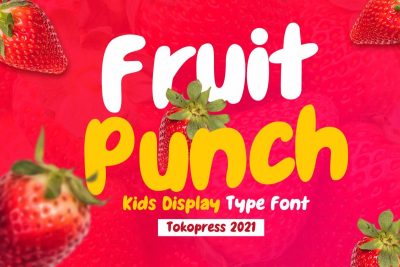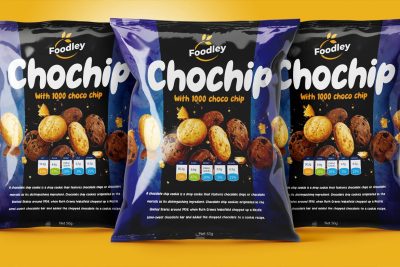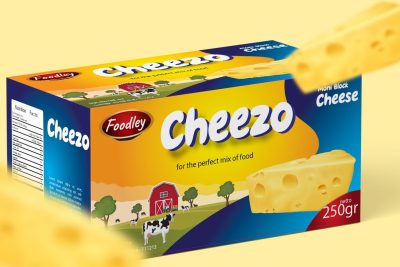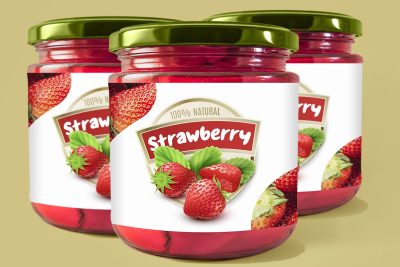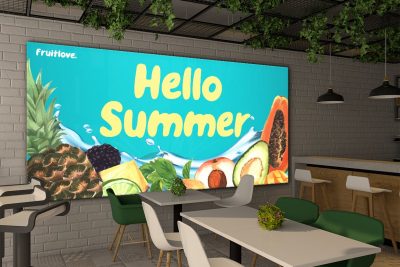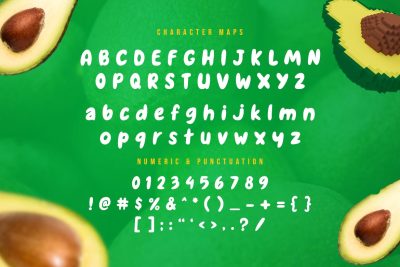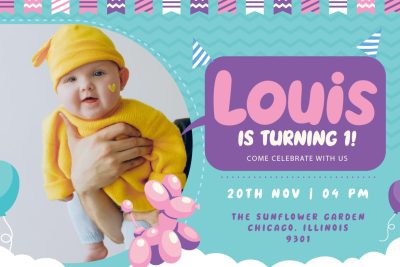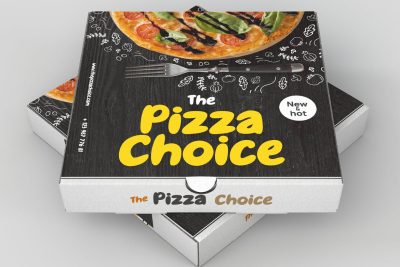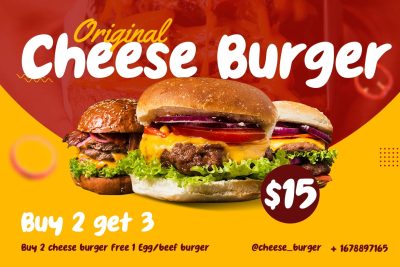
Funny Font Fruit Punch by Tokopress is the perfect choice for designers seeking an energetic and humorous typeface. Inspired by vibrant colors and playful fruit shapes, this font combines a youthful style with bold, eye-catching letters. It not only captures attention but also adds joy and creativity to any project. With its lively, fun feel, itโs ideal for designs aimed at kids.
Whether you’re working on branding, packaging, or digital content, Fruit Punch creates an energetic vibe. The rounded edges and bubbly forms add warmth and charm, making the text feel friendly and approachable. This typeface is great for childrenโs products, food packaging, social media graphics, and more. It ensures readability while keeping a light, playful tone, which is perfect for young audiences or brands with a playful personality.
Versatility and Use Cases for Fruit Punch
One of the strengths of Fruit Punch is its versatility. This font works beautifully across different contexts, including logos, packaging, educational materials, and event promotions. Its friendly look makes it ideal for brands that want to communicate in a fun, accessible way. For example, imagine it on a label for fruit snacks, a childrenโs storybook cover, or a summer event flyerโthis font brings cheer to any design.
Moreover, the fontโs style allows designers to play with color and layout. Fruit Punch pairs well with bright, fruity colors, making it even more eye-catching. Its bold shape also ensures it stands out on digital platforms, capturing viewersโ attention instantly. This font is perfect for social media posts, YouTube thumbnails, and apps for kids. The spacious, rounded characters make it easy to read, even on small screens.
Add a Splash of Fun to Your Brand with Funny Font Fruit Punch
In summary, Fruit Punch is more than a font; itโs an experience. With playful shapes and a lively style, itโs perfect for brands that want to radiate happiness and warmth. By choosing this typeface, youโre adding a memorable visual touch that resonates with audiences. So, whether your brand caters to kids or you want a bit of cheer in your visuals, Fruit Punch is an excellent choice for a playful touch.